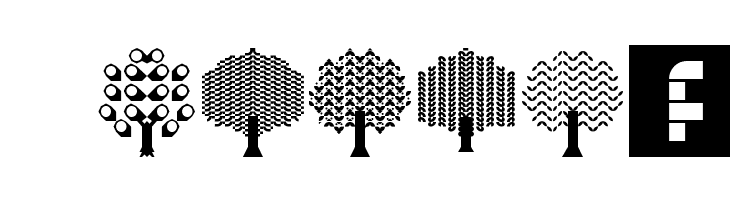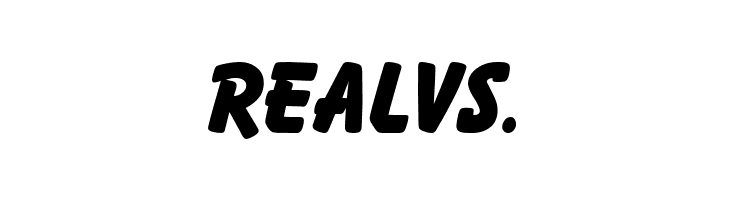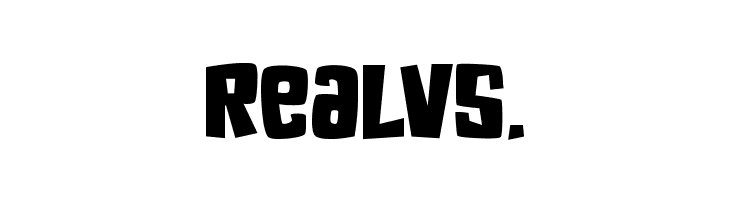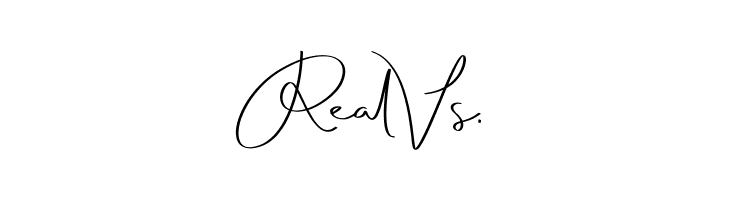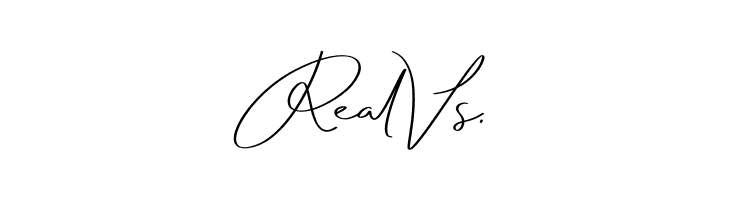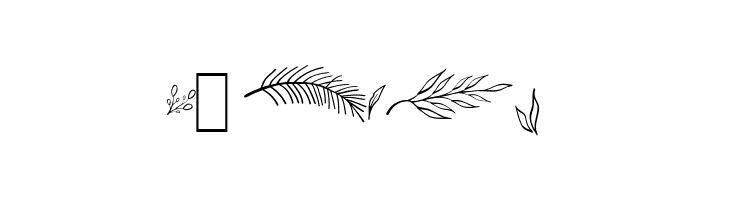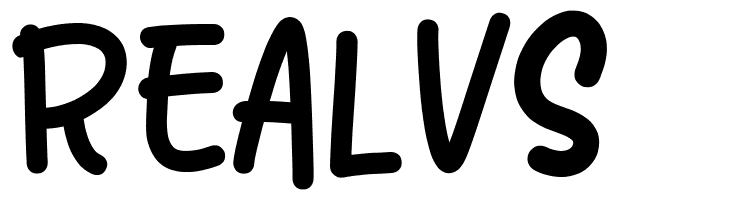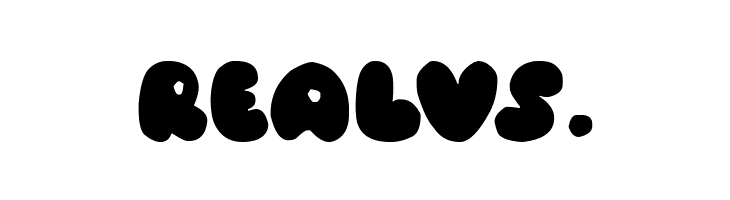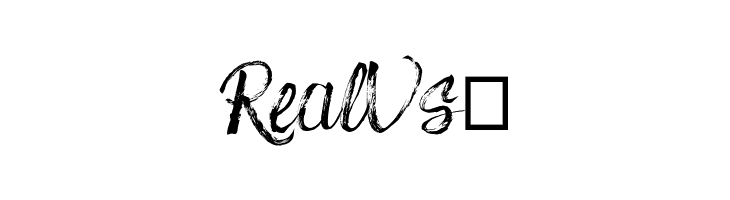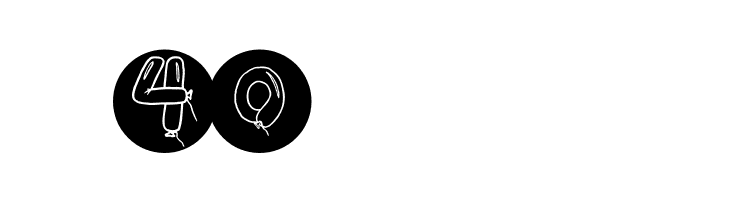
A bold, textured brush script font with dynamic, hand-painted strokes.
A playful, balloon-themed font with bold, rounded characters and a whimsical style.
A playful balloon-themed font with rounded, bubbly characters.
A playful font with numbers styled as inflated balloons, perfect for festive designs.
A playful font with characters inside balloon shapes, perfect for festive designs.
A playful, balloon-like font with rounded, bold characters.
A decorative dingbat font with diverse, stylized tree icons.
A playful, balloon-like font with bold, rounded characters.
A playful, balloon-like font with rounded, bold characters.
A bold, dynamic font with a playful and modern style.
A casual, elegant handwritten script with fluid, interconnected letters.
An elegant and flowing script font with ornate, cursive characters.
A dynamic and elegant script font with flowing, slender letterforms.
A bold, playful handwritten font with rounded, irregular letterforms.
A dynamic, modern font with elongated, slanted characters and a bold presence.
A lively handwritten font with fluid strokes and a casual elegance.
A bold, expressive handwritten font with dynamic strokes and a playful style.
A bold, expressive handwritten font with fluid strokes and a playful style.
An elegant, flowing script font with interconnected letterforms and artistic curves.
Delicate hand-drawn botanical and floral illustration set.
A flowing, cursive script font with elegant, connected characters.
A bold, expressive handwritten font with dynamic strokes and fluid forms.
A bold, brush-style font with a hand-painted look.
A playful, handwritten font with a whimsical and artistic style.
A bold, expressive brush-style font with a dynamic, artistic flair.
A playful, rounded, and bold font with a friendly and modern appearance.
A bold, rounded, and friendly font with a modern and approachable style.
A playful, rounded font with thick, bold strokes and smooth curves.
A modern, rounded font with a friendly and approachable style.